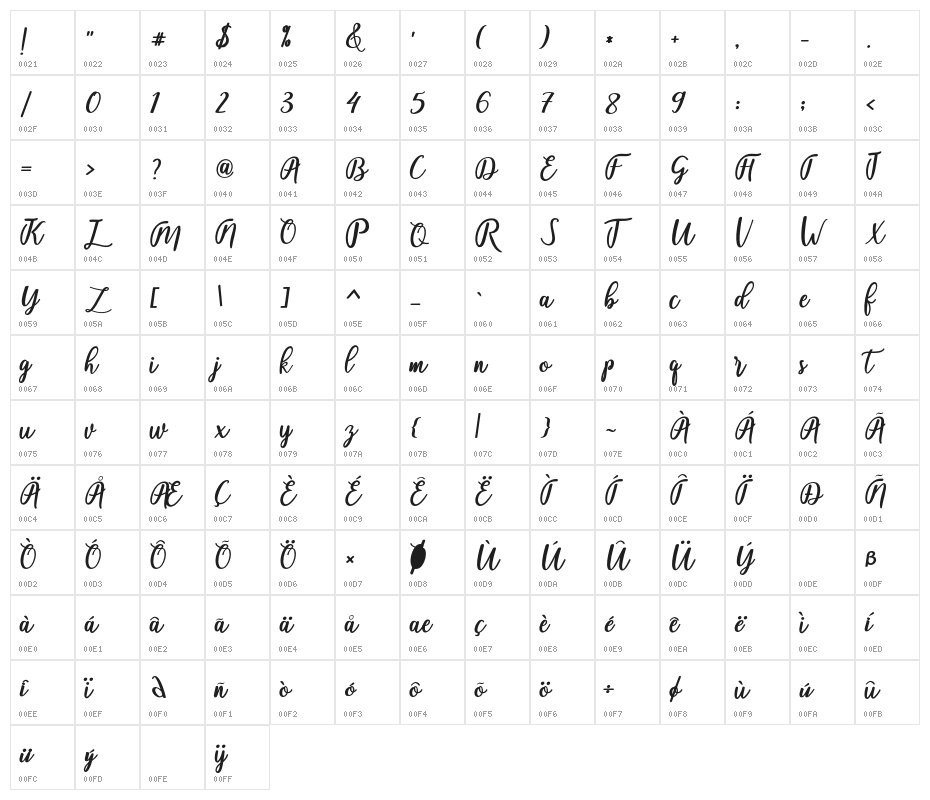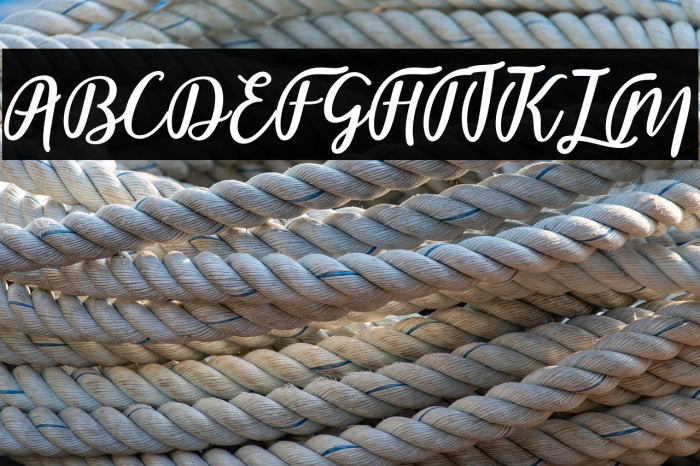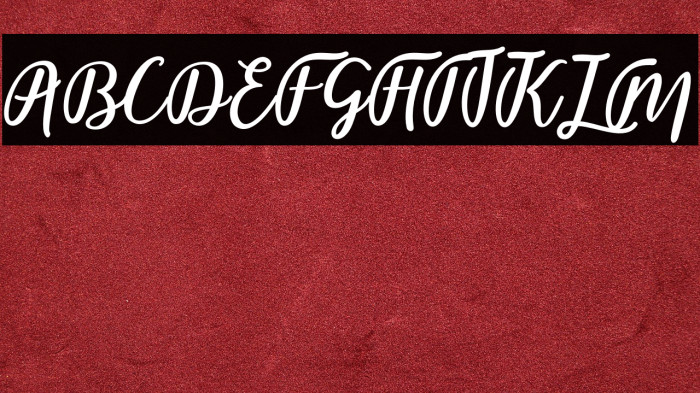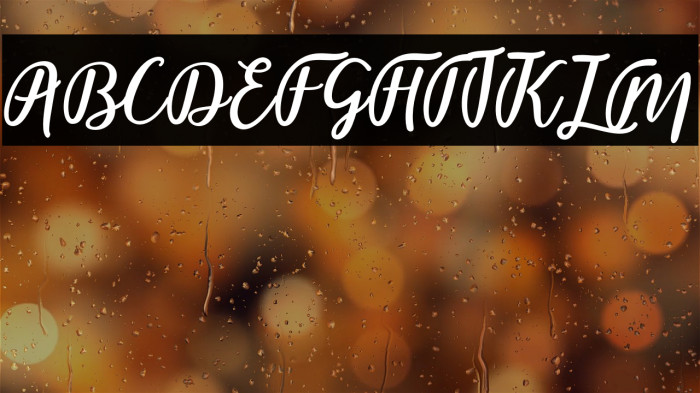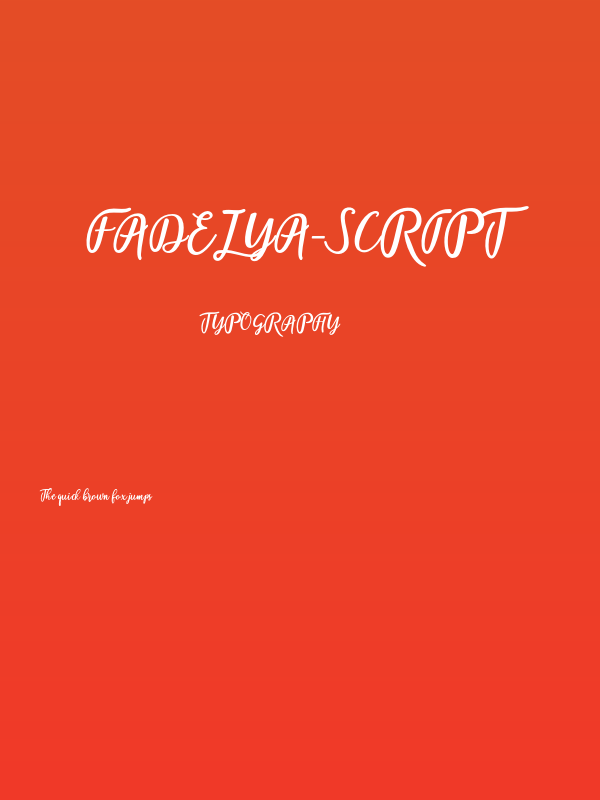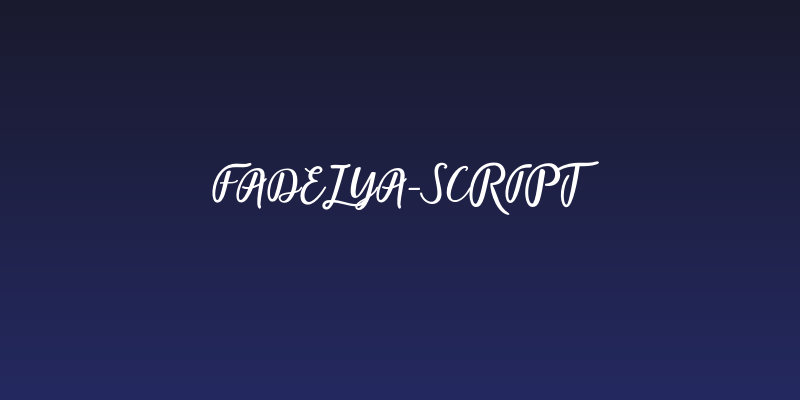
fadelya-script Font
fadelya-script Description
This script font exudes elegance and fluidity, characterized by its smooth, flowing lines and cursive style. The uppercase letters are bold and slightly slanted, giving a sense of movement and grace. The lowercase letters maintain a consistent flow, with some letters featuring loops and swashes that add a decorative touch. The numerals are clear and maintain the script style, ensuring readability while keeping the overall aesthetic. The special characters are well-integrated, matching the font's elegant and stylish appearance. This font is perfect for projects that require a touch of sophistication and charm.
| Overall Style | Elegant, Decorative |
| Use Case | Logos, Invitations, Greeting Cards |
| Proposed Projects | Ideal for wedding invitations, greeting cards, branding, and elegant logo designs. |